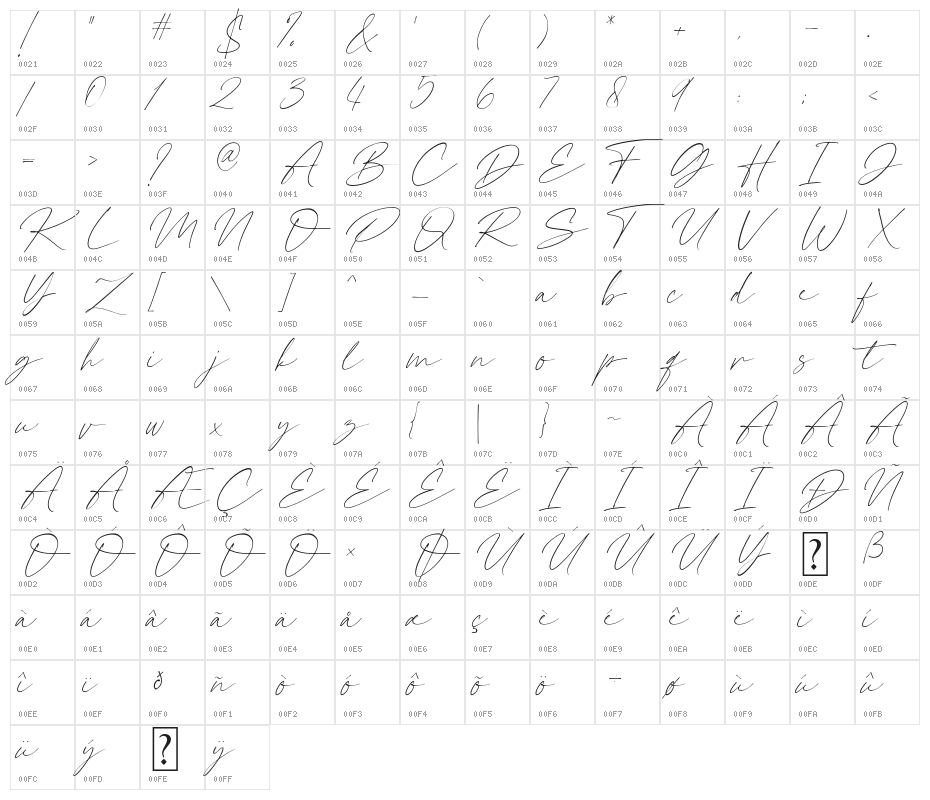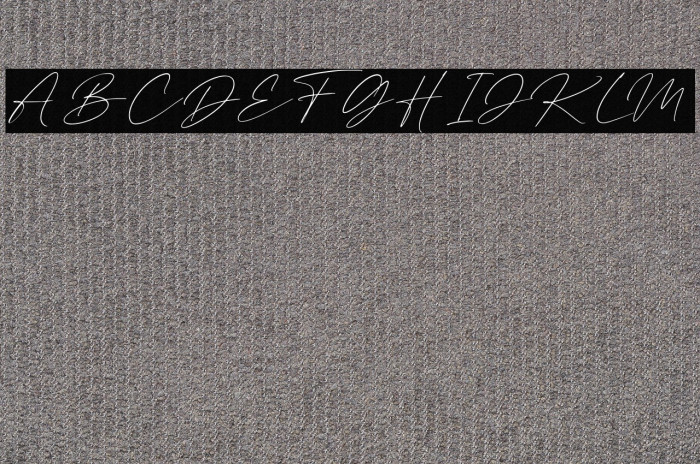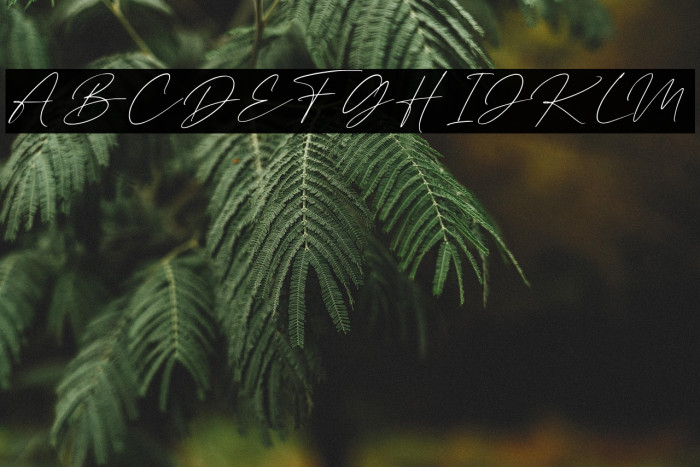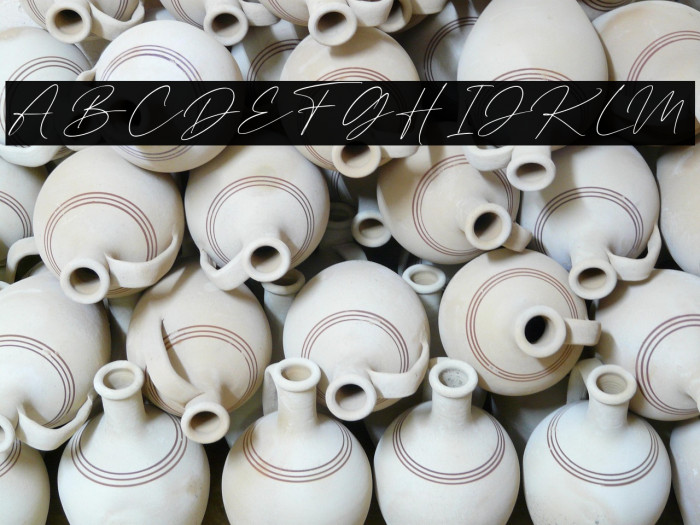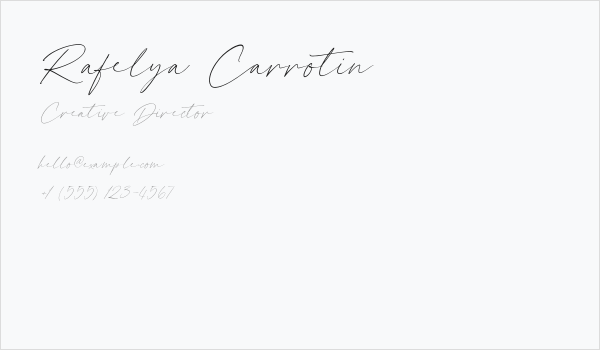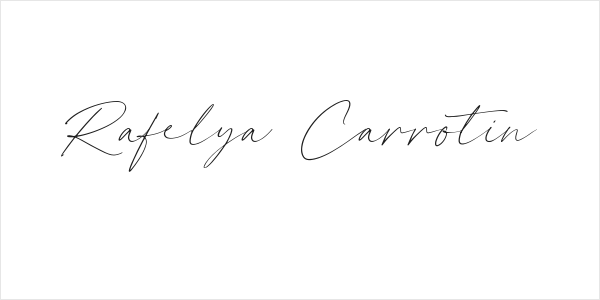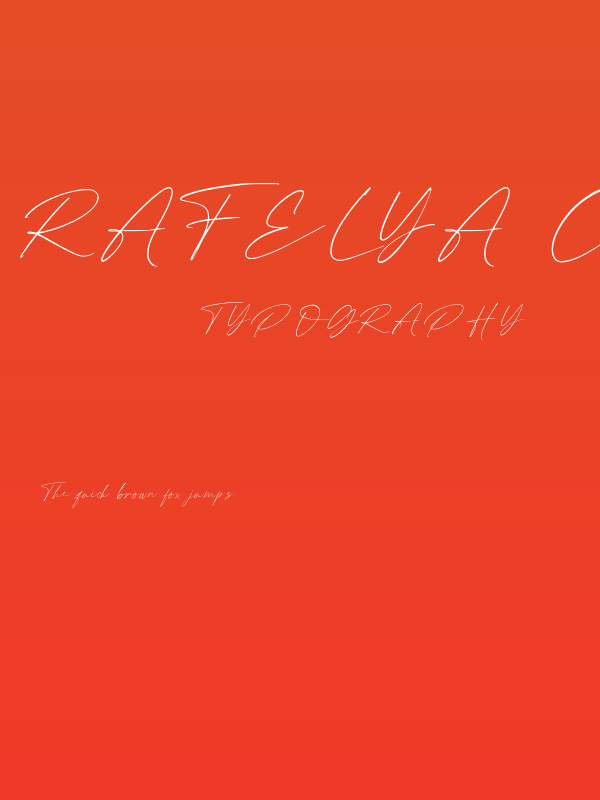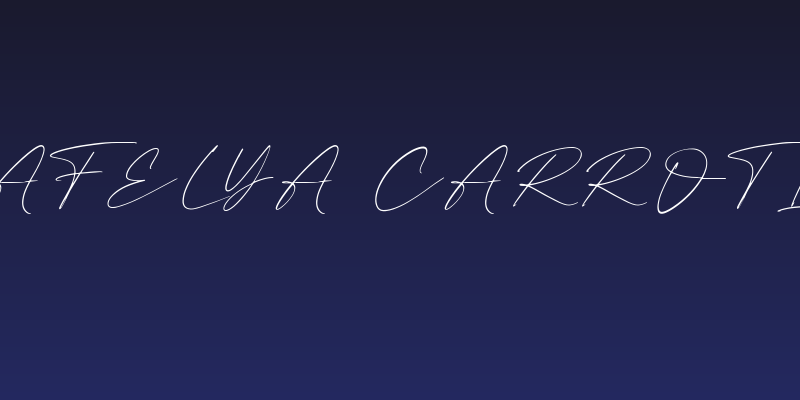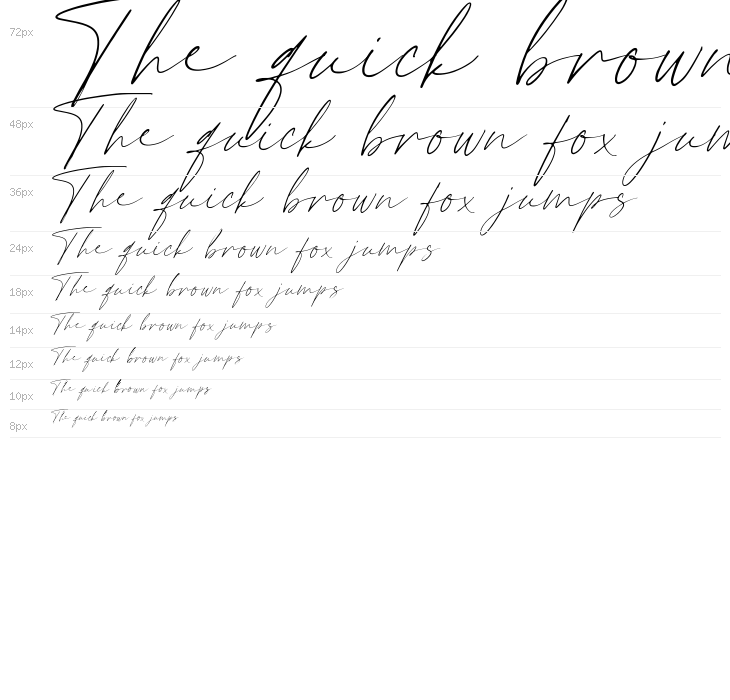
Rafelya Carrotin Font
Rafelya Carrotin Description
This font features a flowing, cursive style that mimics elegant handwriting. The uppercase letters are slightly more restrained, maintaining a consistent height with gentle curves and loops. The lowercase letters are more expressive, with elongated ascenders and descenders that add a dynamic flair. Numbers and special characters follow the same fluid style, ensuring a cohesive look across all text. The strokes are thin and delicate, giving the font a light and airy feel. This style is perfect for adding a personal touch to any project, evoking a sense of sophistication and grace.
| Proposed Projects | Ideal for wedding invitations, personal branding, elegant stationery, and romantic quotes. |